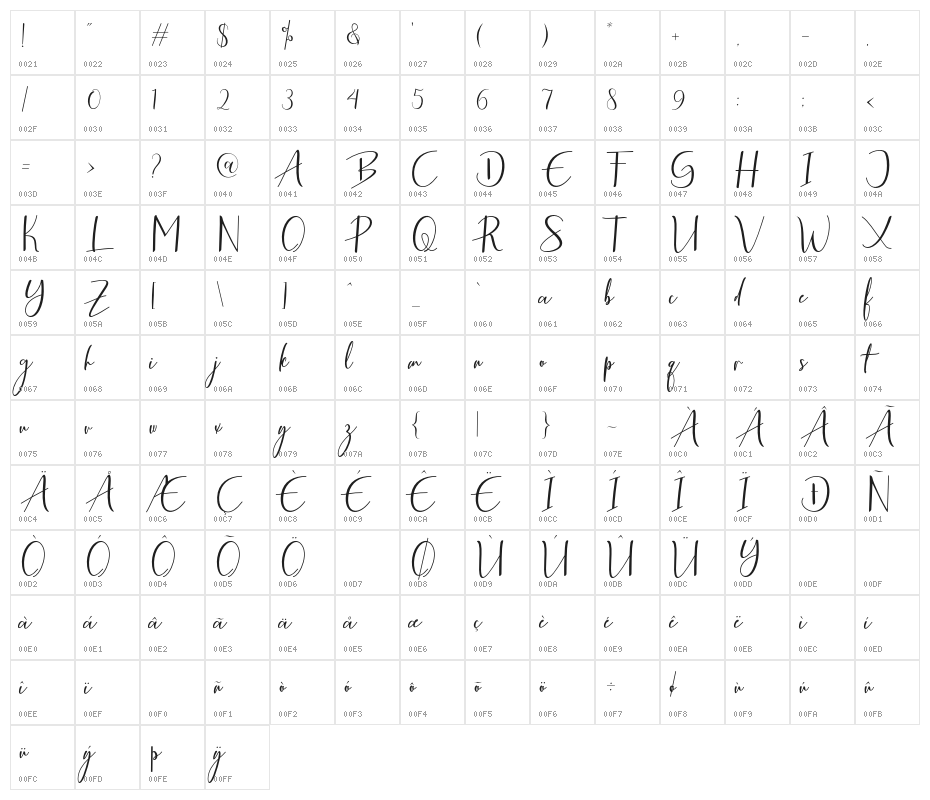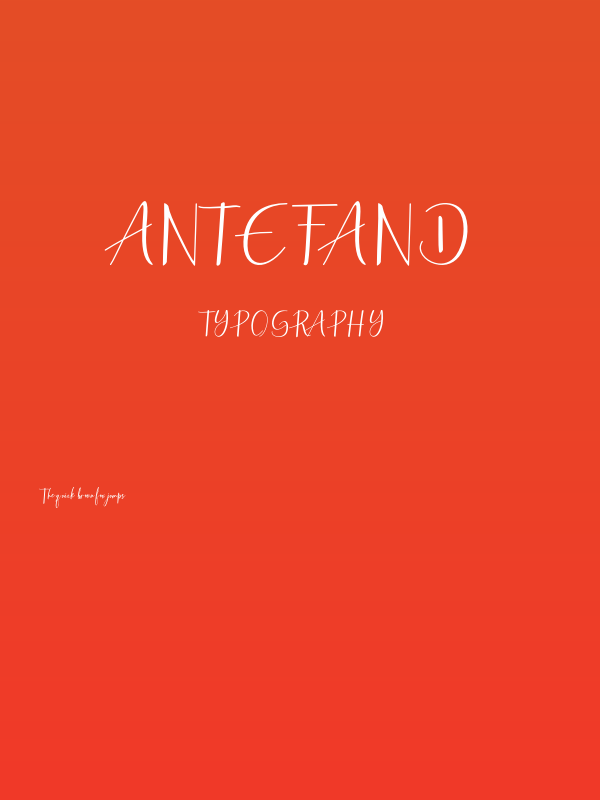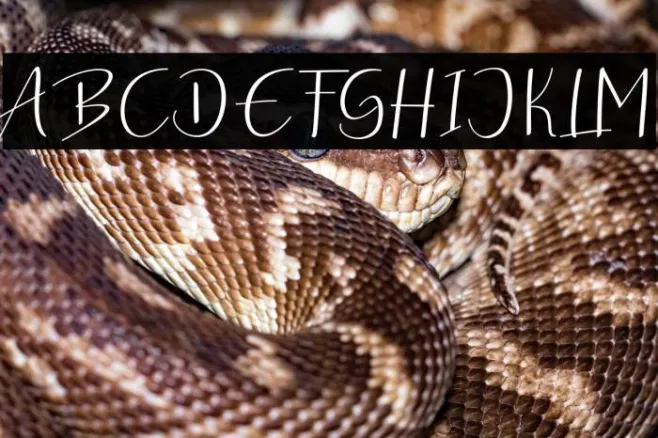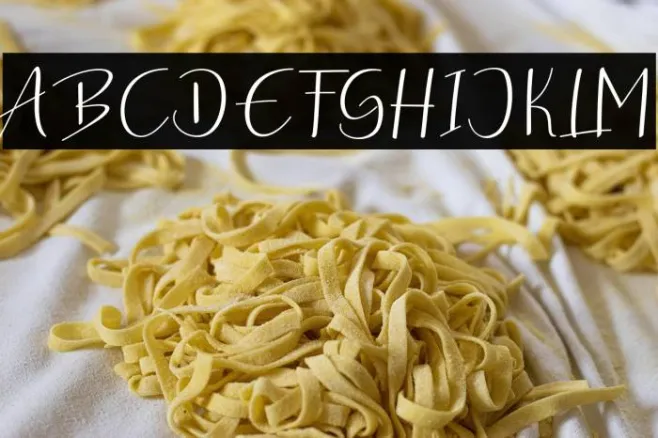
Antefand Font
Antefand Description
This font features a unique blend of elegance and modernity, characterized by its flowing, cursive script and clean, geometric uppercase letters. The uppercase letters have a distinct, artistic flair with varied stroke widths, creating a dynamic and engaging appearance. The lowercase letters are more fluid and connected, resembling a handwritten style that adds a personal touch. The numerals are clear and legible, maintaining the font's overall aesthetic. Special characters are thoughtfully designed to complement the letterforms, making this font versatile for various applications.
| Proposed Projects | Ideal for wedding invitations, branding, logo design, and elegant stationery. |